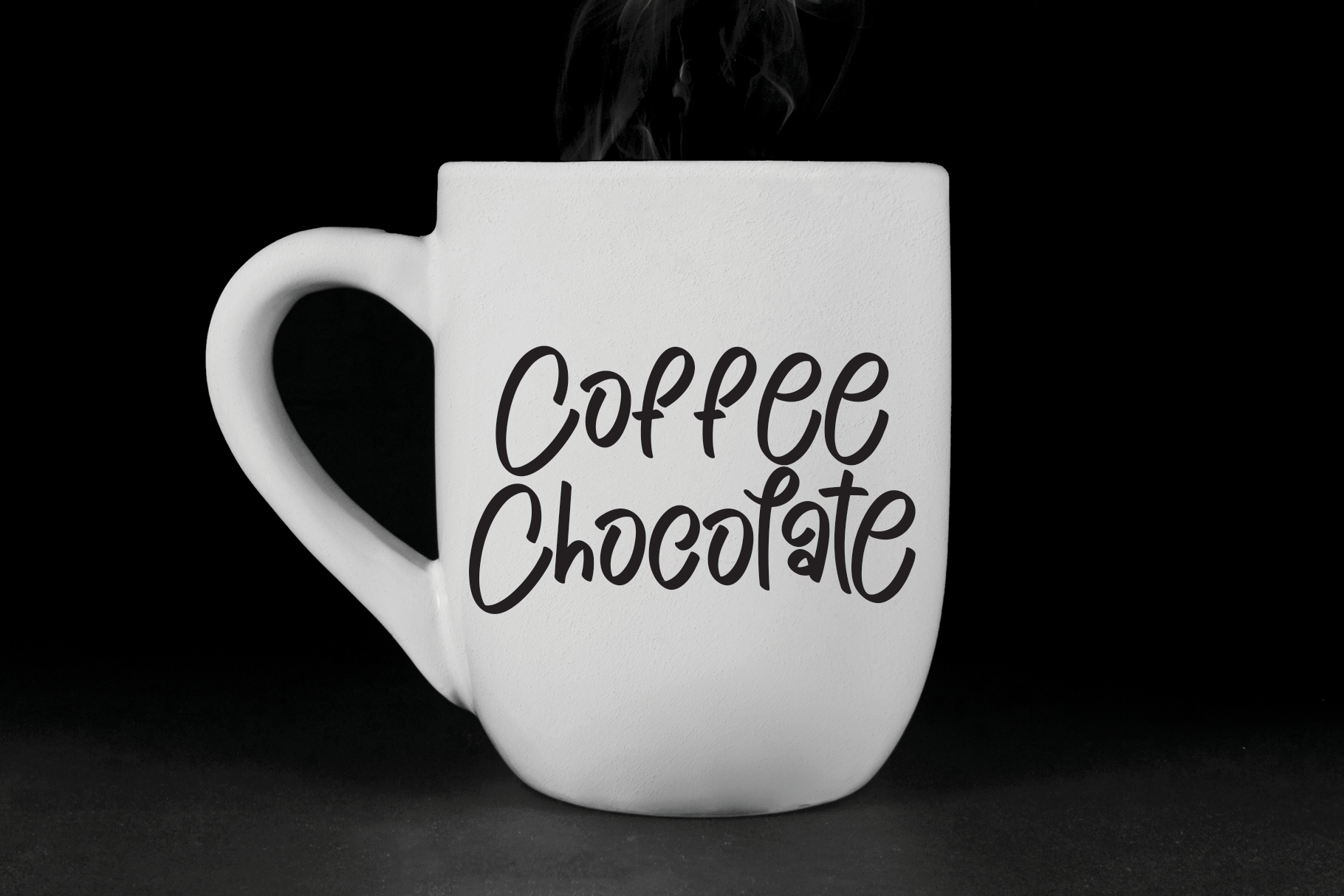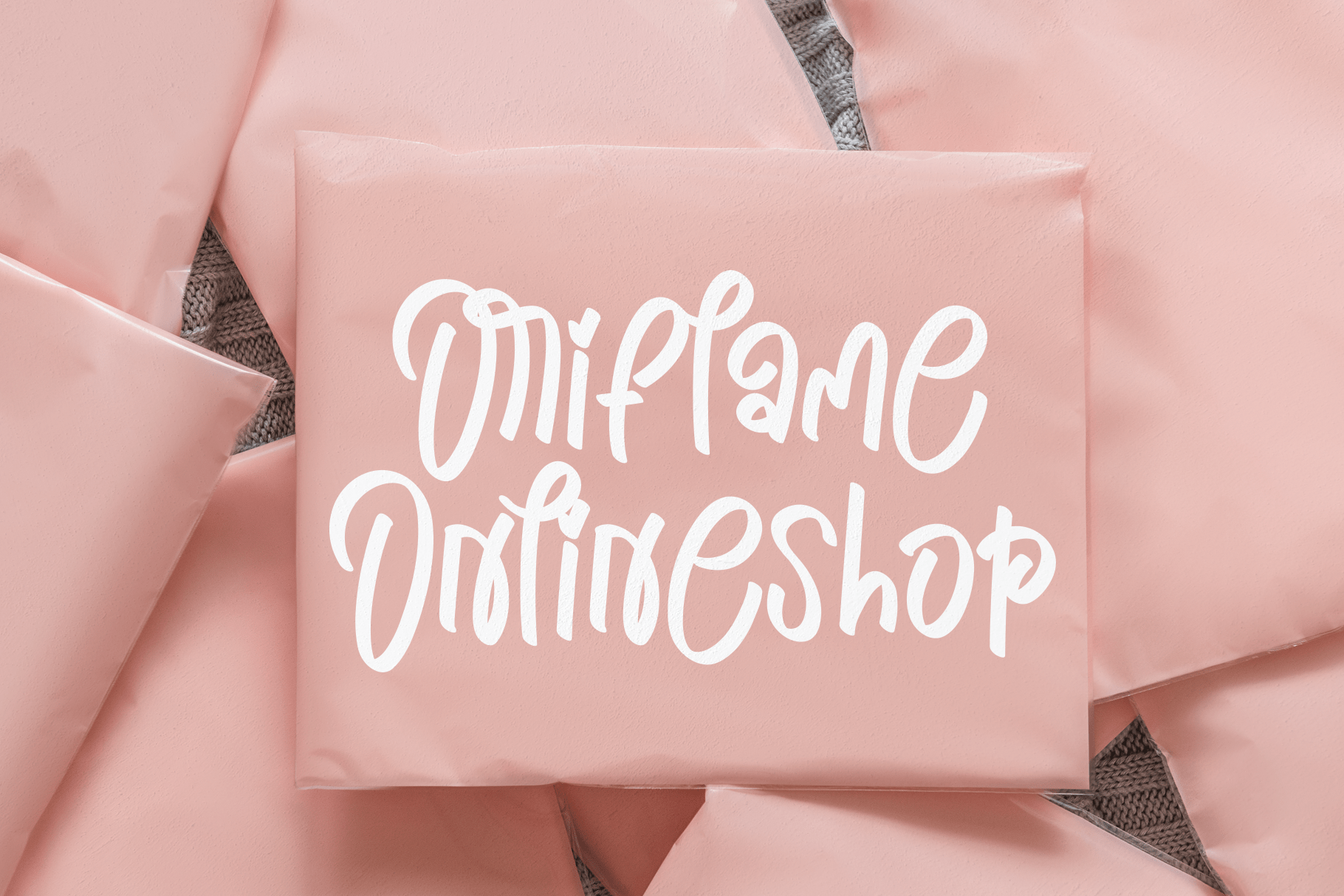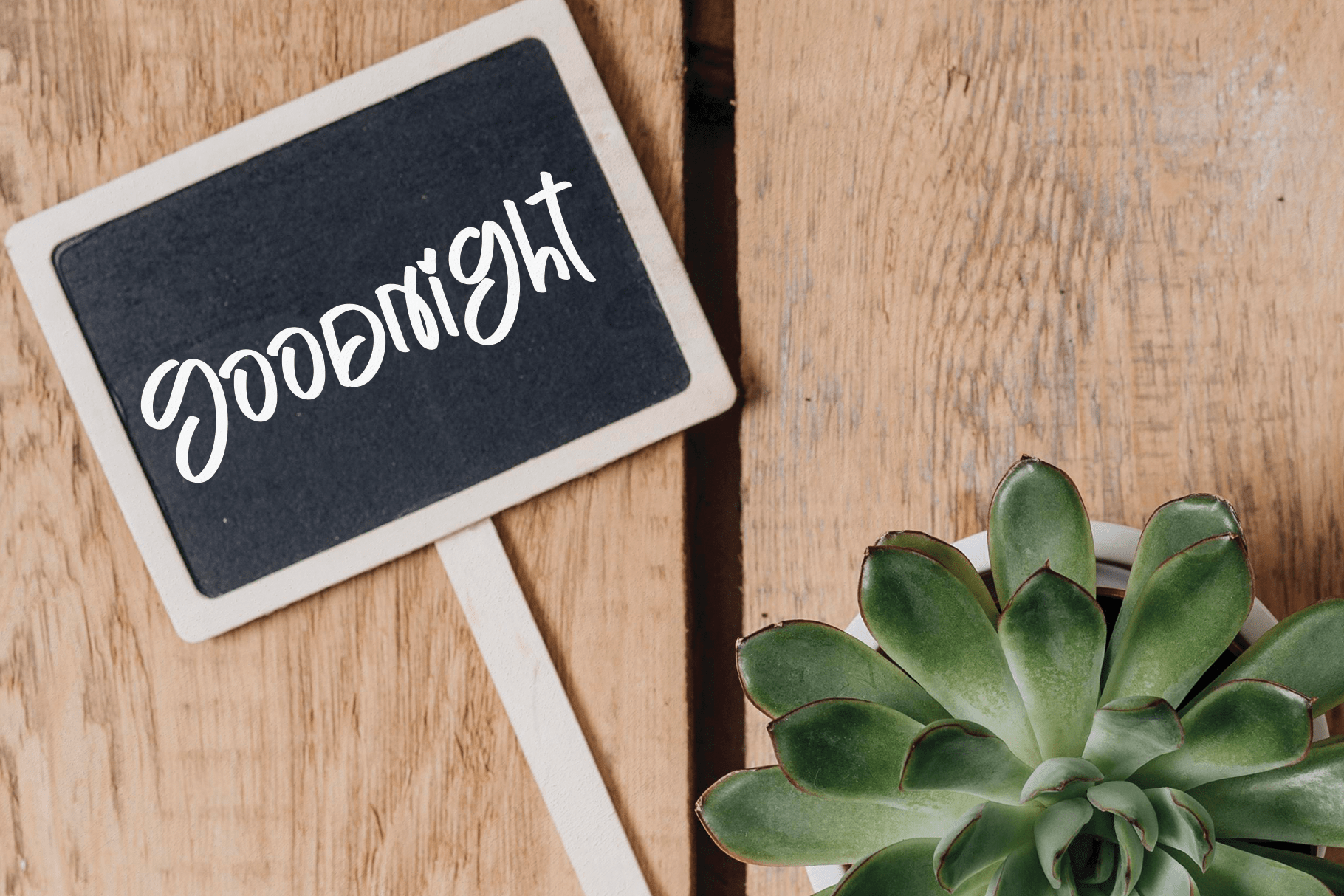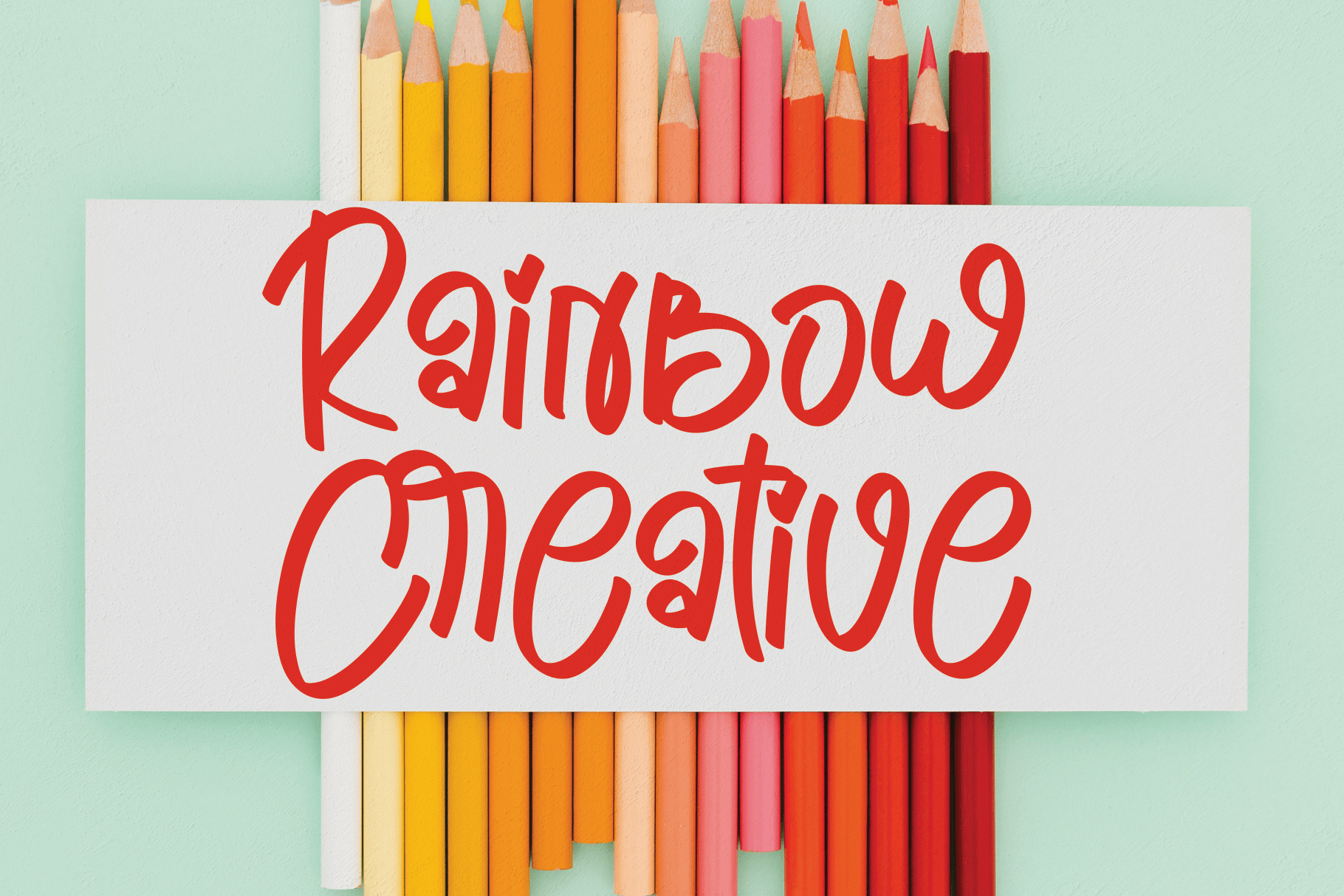
Display Disney Script Font
This is a chic and whimsical script font. Whatever the topic, this font will be a wonderful asset to your font library, as it has the potential to enhance any creation.